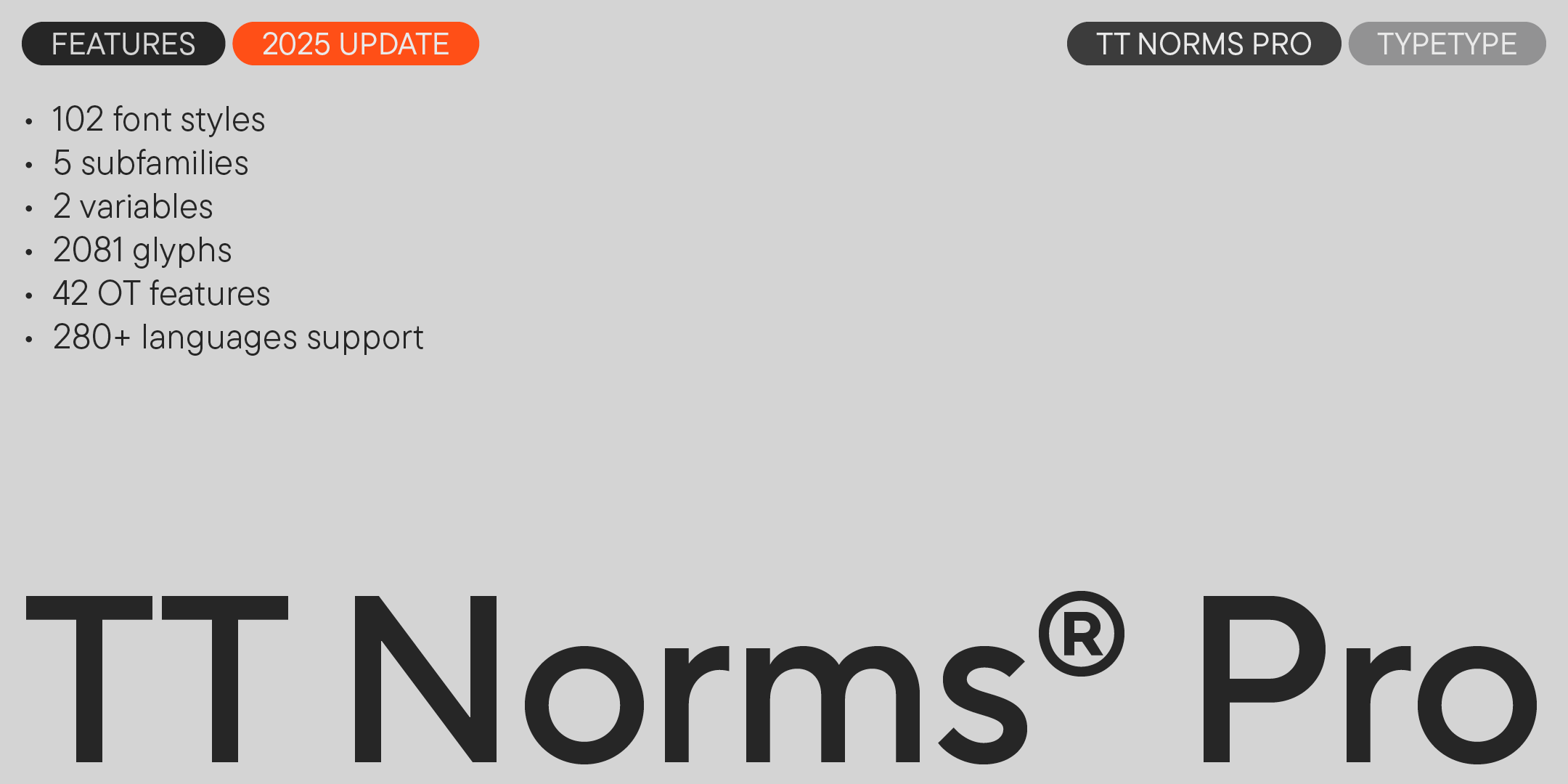
TT Norms Pro Font Free Download is a clean, modern sans-serif typeface designed for clarity, functionality, and versatility. Its geometric structure and neutral design make it ideal for a wide range of applications, from corporate branding and user interfaces to editorial design and advertising.
With a comprehensive family that includes multiple weights and styles, TT Norms Pro allows designers to build cohesive visual hierarchies with ease. Whether you’re crafting a website, mobile app, or printed materials, this font ensures legibility and professionalism across all platforms.